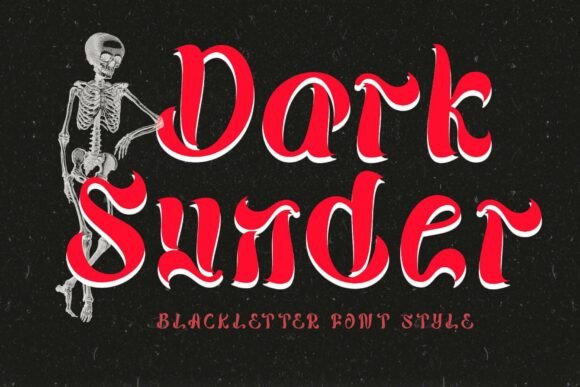
Unleash the Darkness: Discover the Bold and Edgy Dark Sunder Font
In the world of typography, fonts play a crucial role in conveying the tone and aesthetic of a design. For those seeking a bold and edgy look, the Dark Sunder font is an exceptional choice. This blackletter font, with its modern twist, is perfect for creating striking designs that exude a rebellious, gothic vibe. In this article, we’ll explore the features, uses, and benefits of the Dark Sunder font, and why it’s an ideal choice for horror themes, metal band logos, Halloween posters, tattoo designs, and more.
The Dark Sunder Font: A Modern Take on Blackletter Typography
Blackletter fonts have been around for centuries, originating in medieval Europe. These fonts are characterized by their dramatic, ornate, and often Gothic appearance. However, the Dark Sunder font takes this classic style and infuses it with a modern twist. Its sharp curves, high contrast strokes, and haunting style make it a unique and captivating typeface.
The Dark Sunder font’s design is a masterful balance of old-world drama and contemporary impact. Its bold, edgy appearance is perfect for designs that require a strong, attention-grabbing presence. Whether you’re creating a logo, poster, or tattoo design, this font is sure to make a statement.
Key Features of the Dark Sunder Font
- Sharp Curves: The Dark Sunder font features sharp, precise curves that add to its edgy, modern appearance.
- High Contrast Strokes: The font’s high contrast strokes create a sense of drama and elegance, making it perfect for designs that require a touch of sophistication.
- Haunting Style: The Dark Sunder font has a haunting, eerie quality that makes it ideal for horror-themed designs, Halloween posters, and other spooky projects.
- Bold and Edgy: This font is bold, edgy, and attention-grabbing, making it perfect for designs that require a strong presence.
Uses for the Dark Sunder Font
The Dark Sunder font is versatile and can be used for a variety of design projects. Here are some of the most popular uses for this font:
- Horror Themes: The Dark Sunder font is perfect for horror-themed designs, such as movie posters, book covers, and video game artwork.
- Metal Band Logos: The font’s bold, edgy appearance makes it an excellent choice for metal band logos, adding a touch of rebellion and aggression to the design.
- Halloween Posters: The Dark Sunder font is a great choice for Halloween posters, flyers, and other promotional materials, adding a spooky, eerie touch to the design.
- Tattoo Designs: The font’s haunting style and bold appearance make it perfect for tattoo designs, adding a touch of drama and elegance to the artwork.
Benefits of Using the Dark Sunder Font
The Dark Sunder font offers several benefits for designers, including:
- Unique Appearance: The font’s unique appearance sets it apart from other blackletter fonts, making it a great choice for designers seeking a distinctive look.
- Versatility: The Dark Sunder font is versatile and can be used for a variety of design projects, from horror themes to metal band logos.
- Attention-Grabbing: The font’s bold, edgy appearance is attention-grabbing, making it perfect for designs that require a strong presence.
- Easy to Read: Despite its bold appearance, the Dark Sunder font is easy to read, making it a great choice for designs that require a clear, legible typeface.
Tips for Using the Dark Sunder Font
To get the most out of the Dark Sunder font, here are some tips to keep in mind:
- Use it Sparingly: The Dark Sunder font is bold and attention-grabbing, so use it sparingly to avoid overwhelming the design.
- Pair it with Other Fonts: The font pairs well with other fonts, such as sans-serif fonts, to create a striking contrast.
- Experiment with Colors: The Dark Sunder font looks great in a variety of colors, from bold and bright to dark and muted.
- Pay Attention to Kerning: As with any font, pay attention to kerning to ensure that the text is clear and legible.
The Dark Sunder font is a bold and edgy blackletter font with a modern twist. Its sharp curves, high contrast strokes, and haunting style make it perfect for horror themes, metal band logos, Halloween posters, tattoo designs, and anything that craves a rebellious, gothic touch. With its unique appearance, versatility, and attention-grabbing presence, this font is sure to make a statement in any design project.